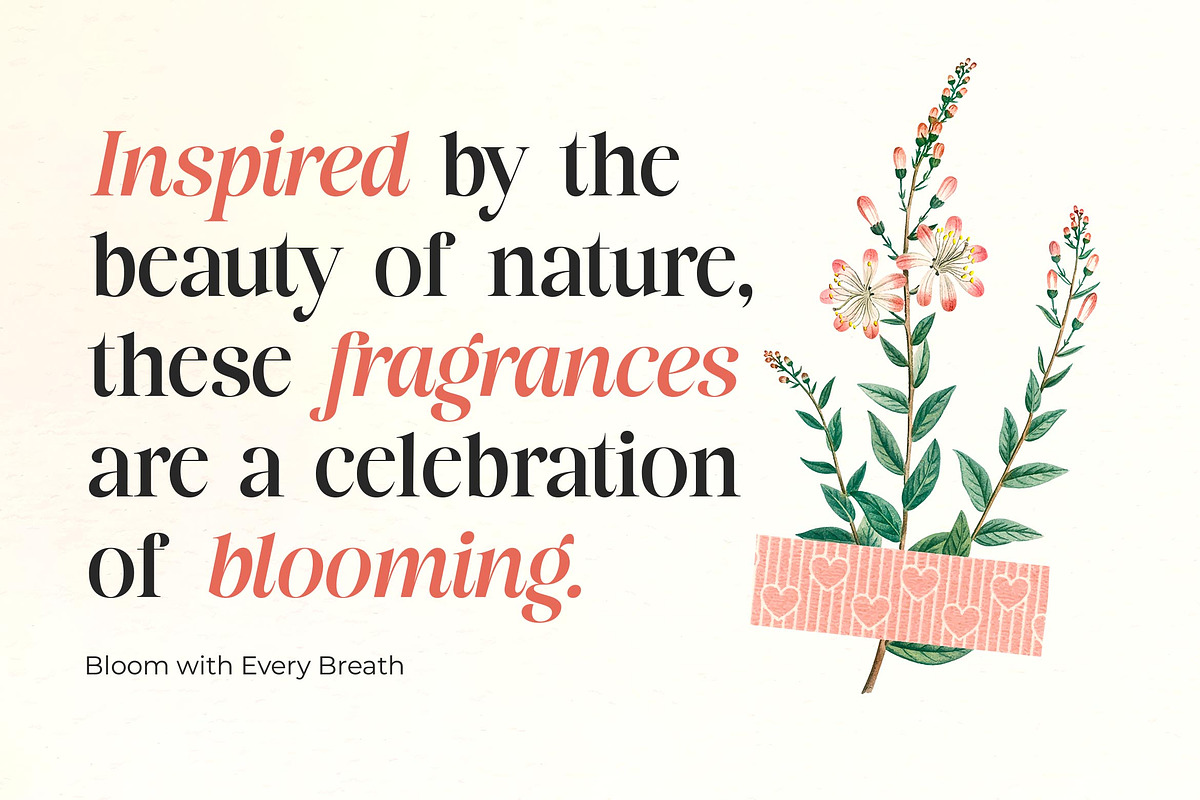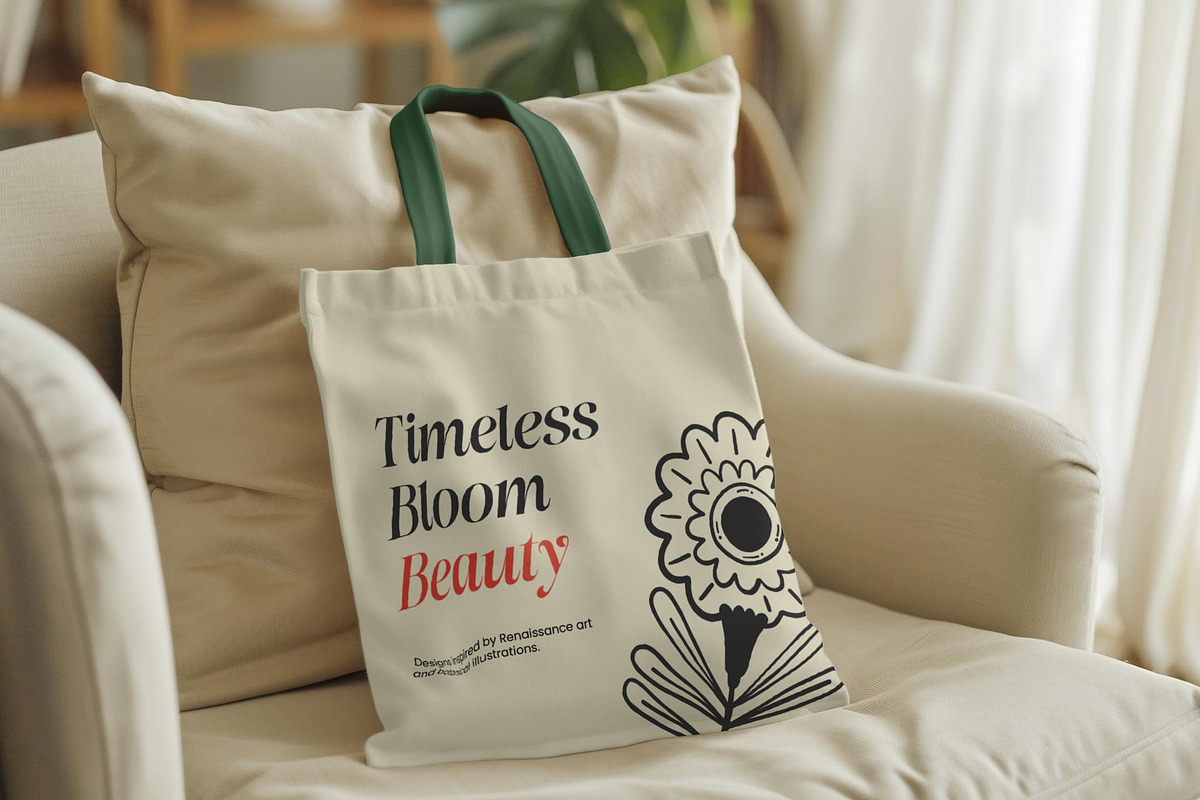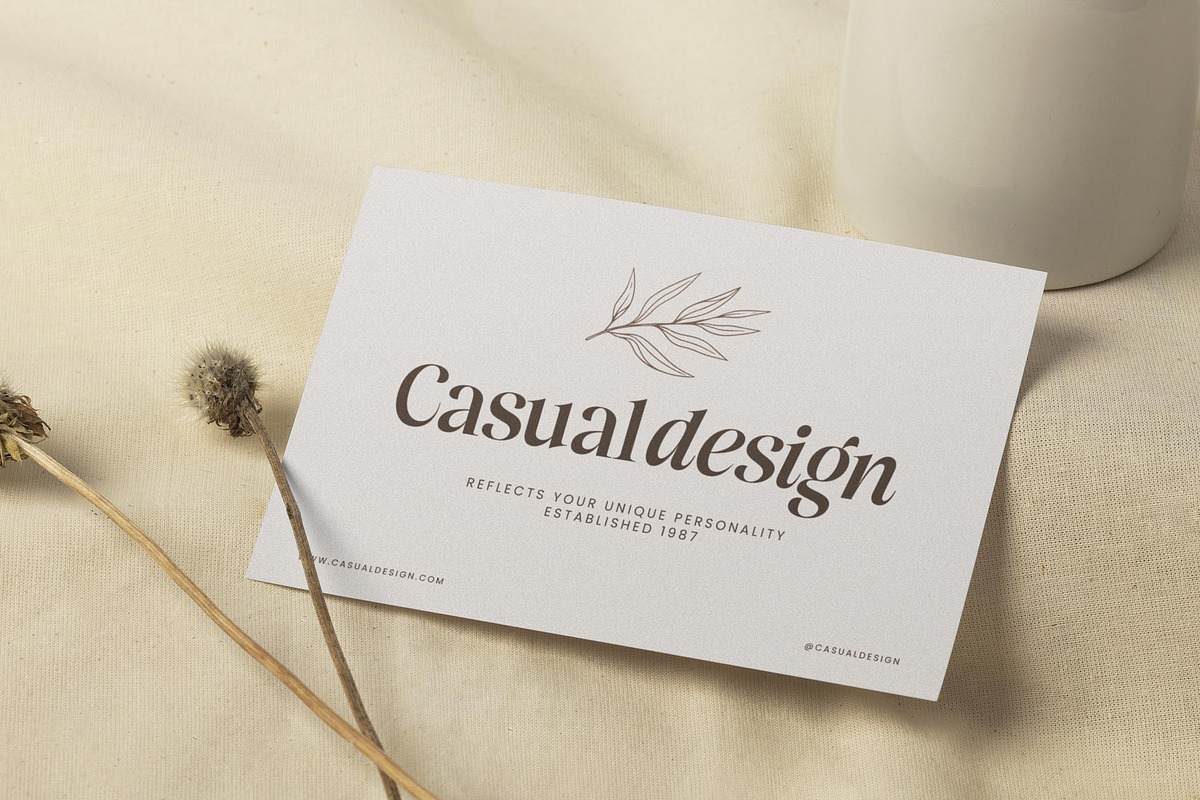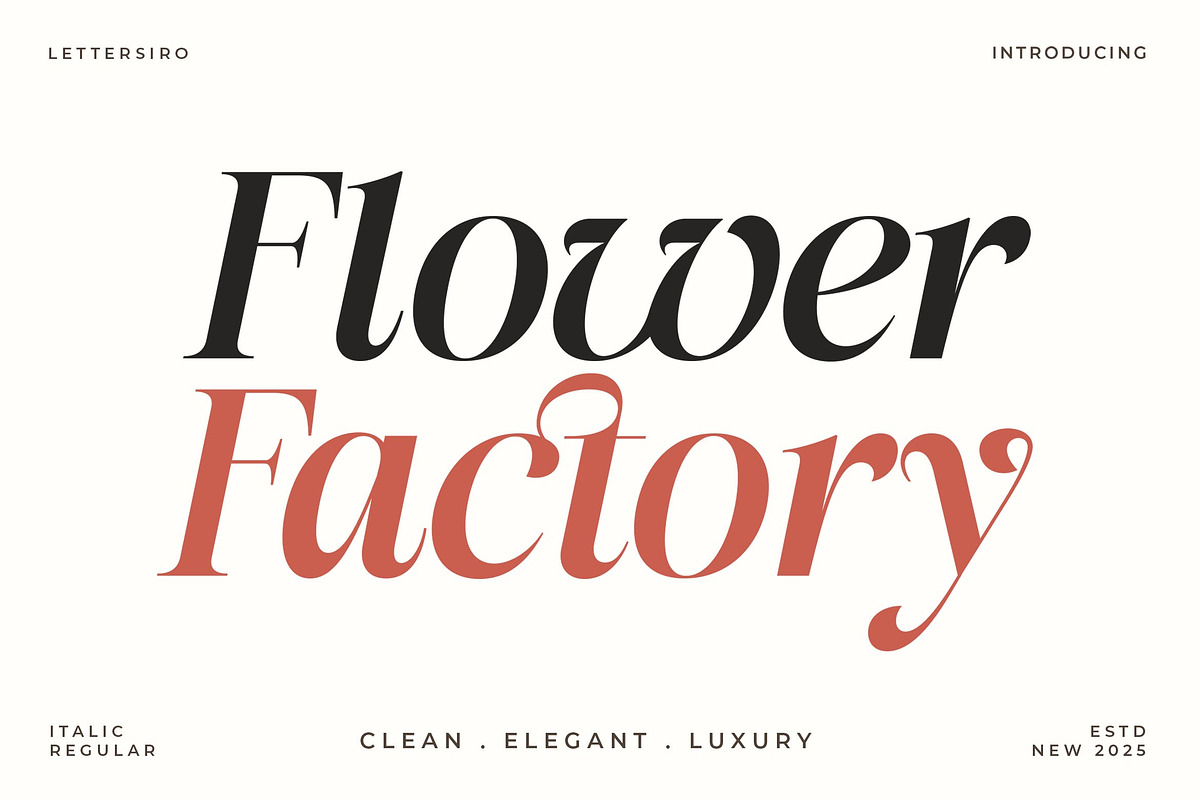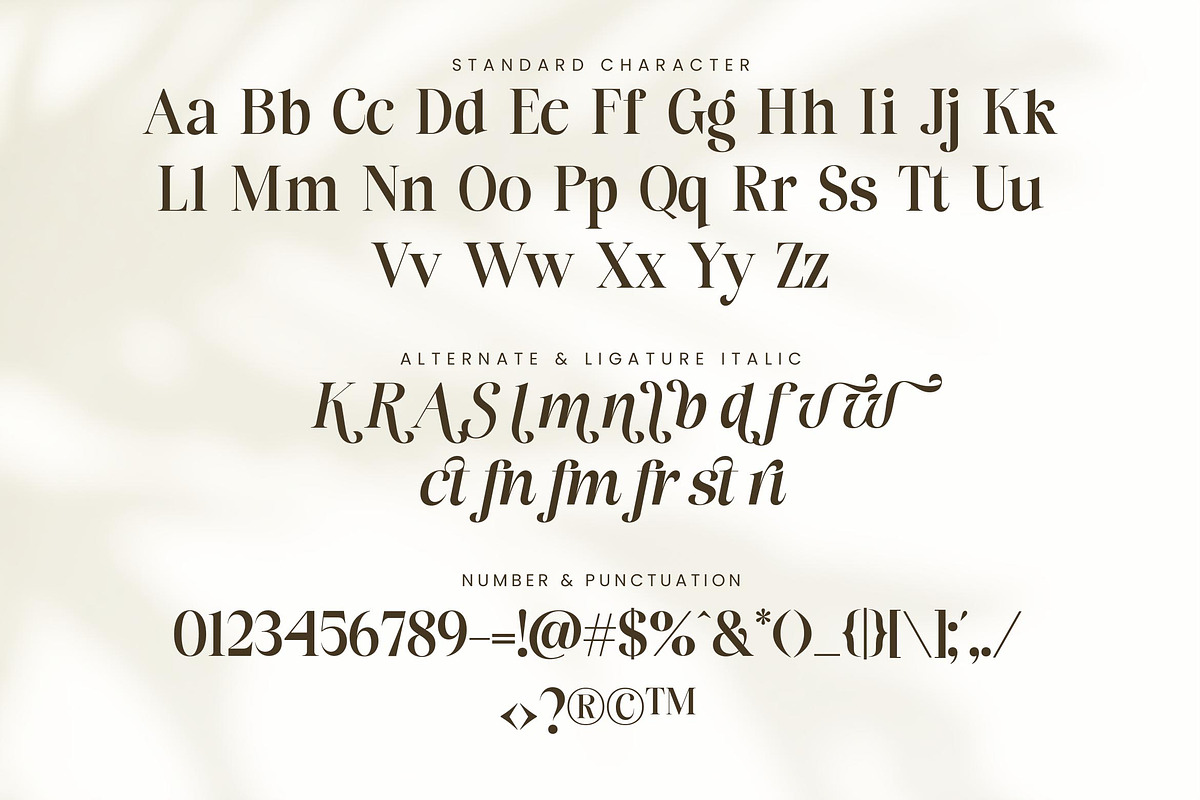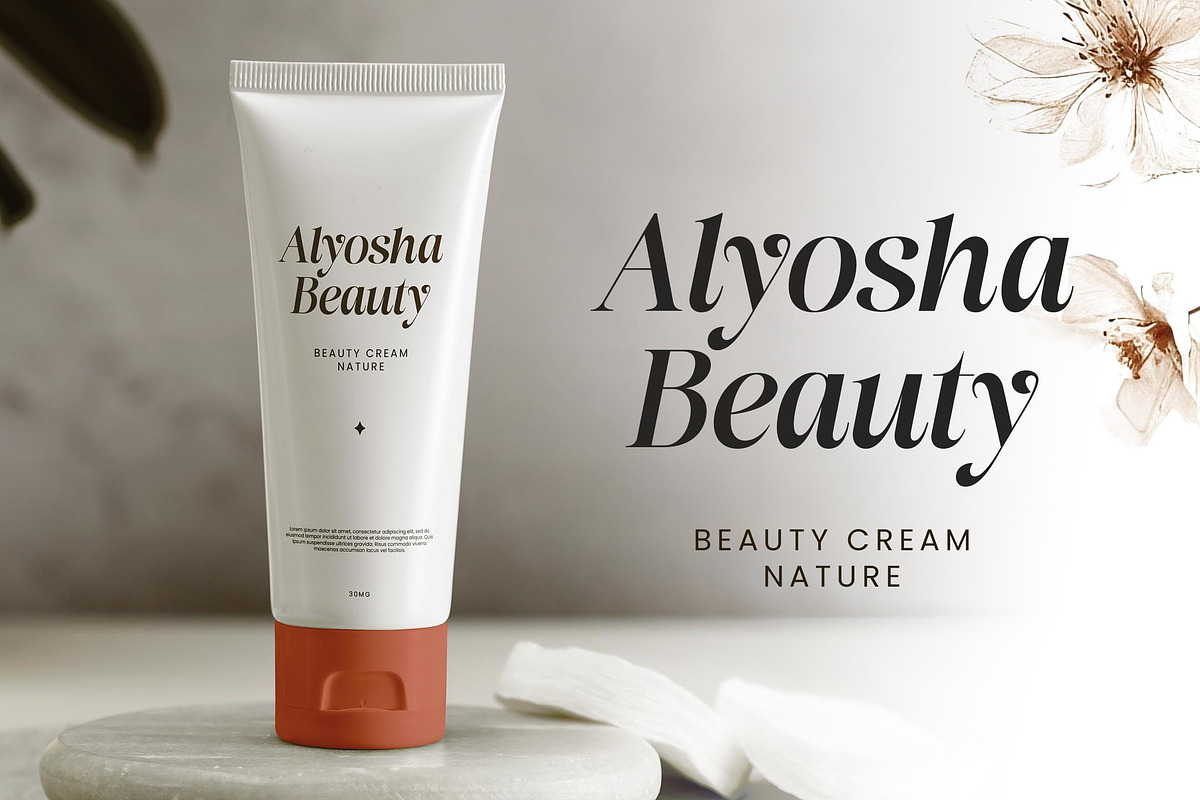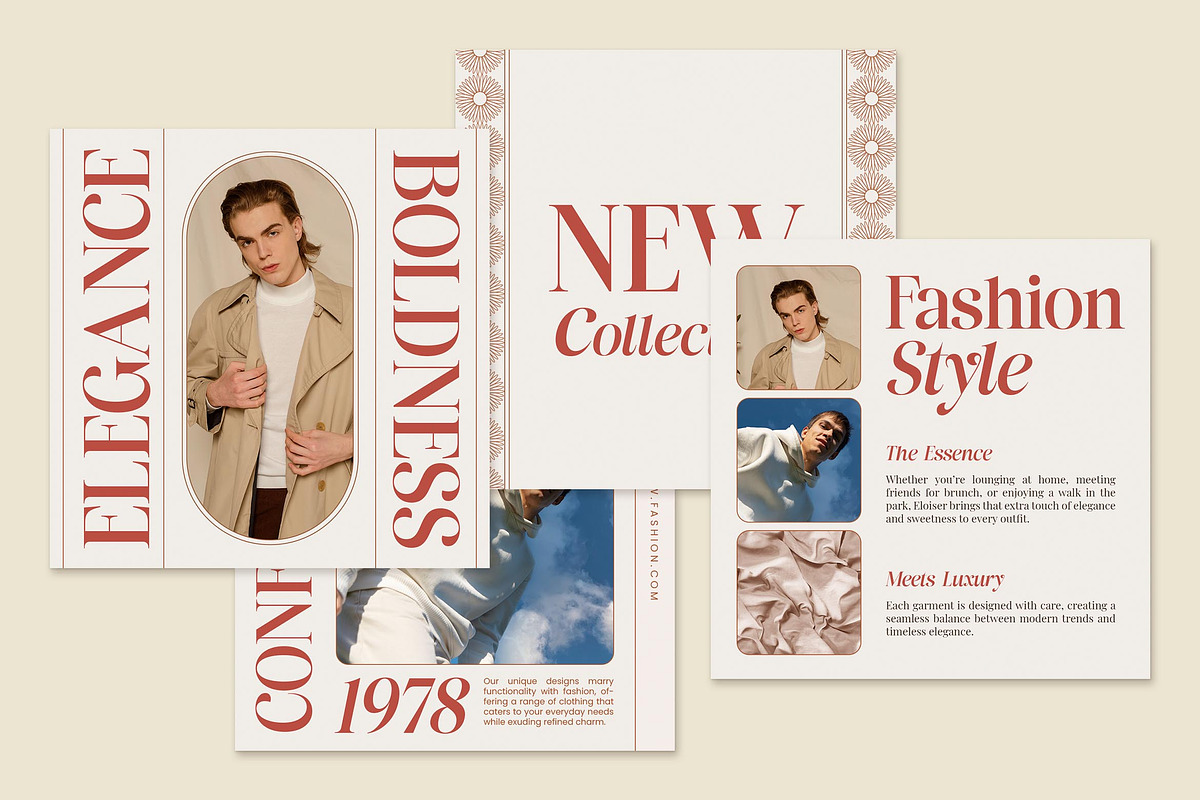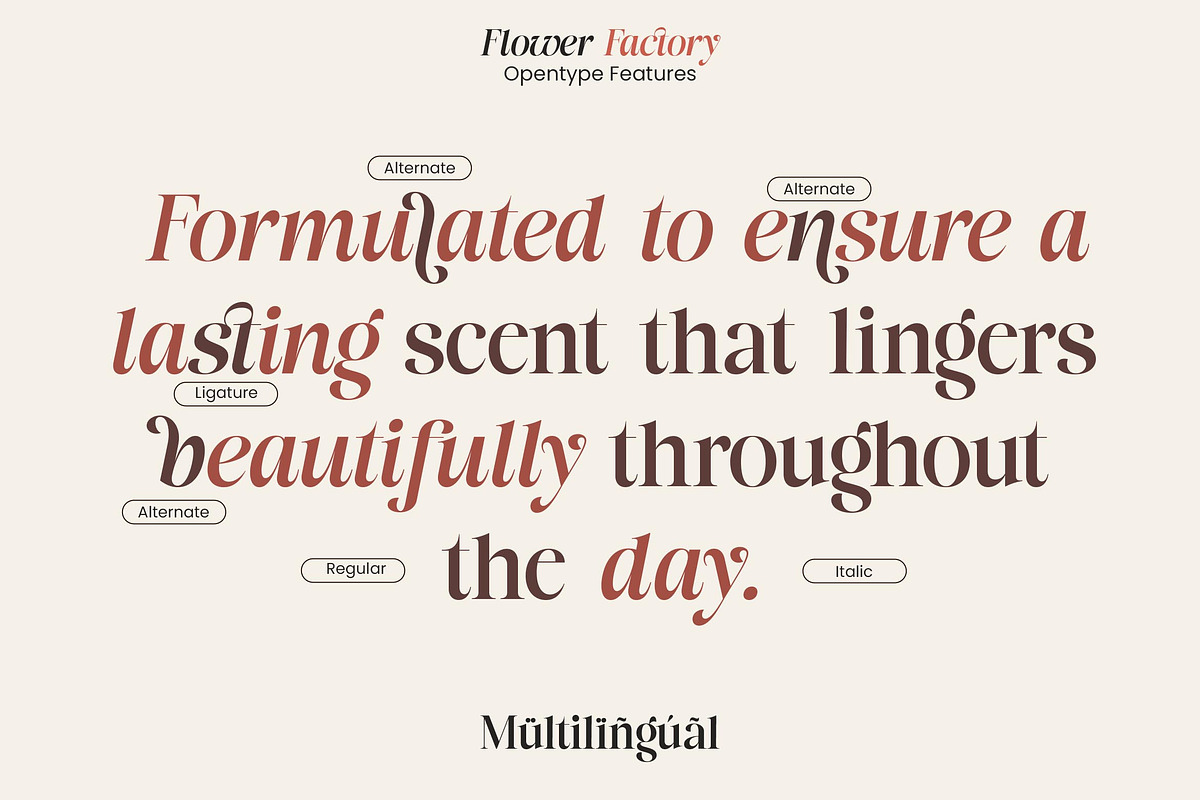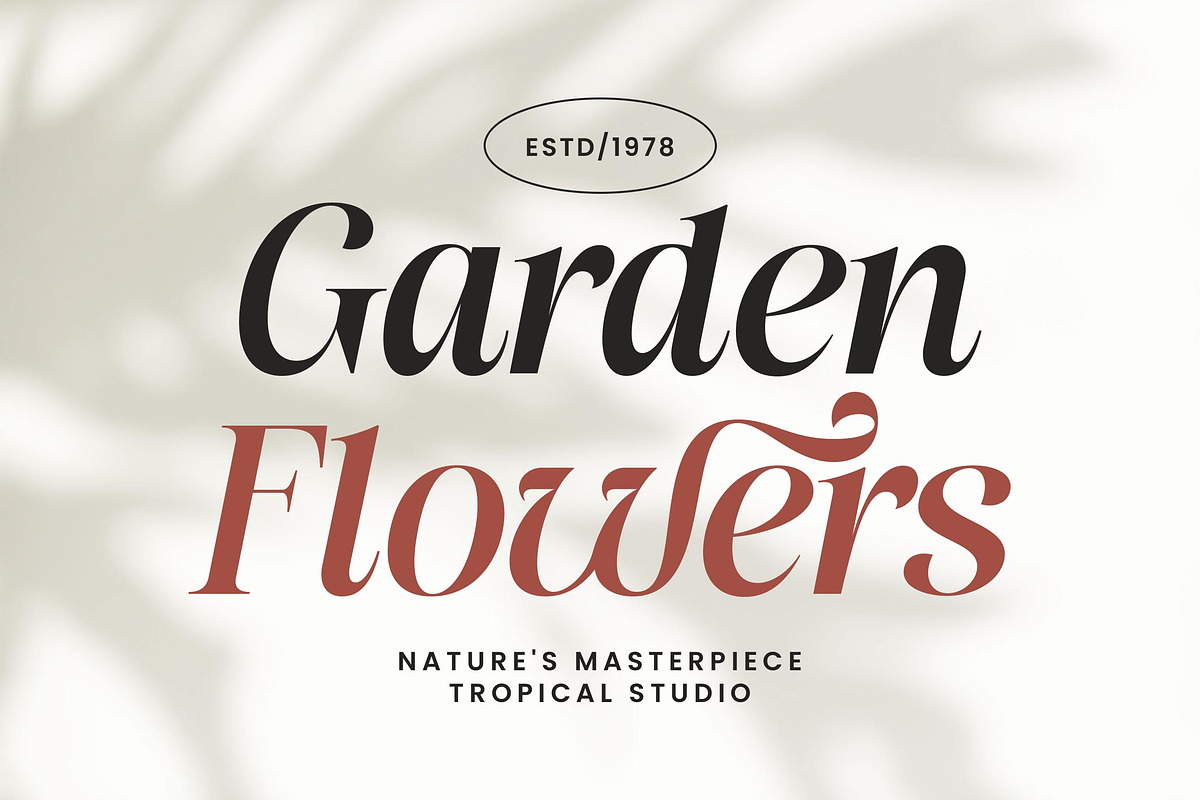
Flower Factory - Stylish Modern Seri
Flower Factory – Stylish Modern Serif Font
Flower Factory is a stylish serif font that combines modern elegance with artistic charm. Designed with graceful curves and refined contrast, this typeface brings a sense of beauty, confidence, and sophistication to your visual projects. Its clean yet expressive letterforms make it perfect for branding designs that require a touch of personality and professional flair.
With both Regular and Italic styles included, Flower Factory offers creative flexibility for titles, logos, product packaging, quotes, posters, and more. Every detail is thoughtfully crafted to ensure a unique typographic voice that feels timeless and elegant. This font gives your design a distinctive and luxurious presence across both print and digital media.
Elegant and Modern Look – Strong contrast and smooth curves for high readability and visual impact.
Two Styles Included – Regular and Italic for versatile typographic use.
Complete Character Set – Uppercase, lowercase, numbers, punctuation, and symbols.
OpenType Features – Includes ligatures and stylistic alternates.
Multilingual Support – Supports Western European languages.
Luxury Branding – Build elegant and elevated brand identities.
Product Packaging – Add personality and style to label designs.
Logo Design – Create modern, memorable brand marks.
Editorial Projects – Ideal for headlines, covers, and professional layouts.
Invitations & Quotes – Craft beautiful text with a sophisticated serif touch.
Flower Factory brings a modern take on classic elegance—crafted for designers who want their typography to stand out with style and luxury.